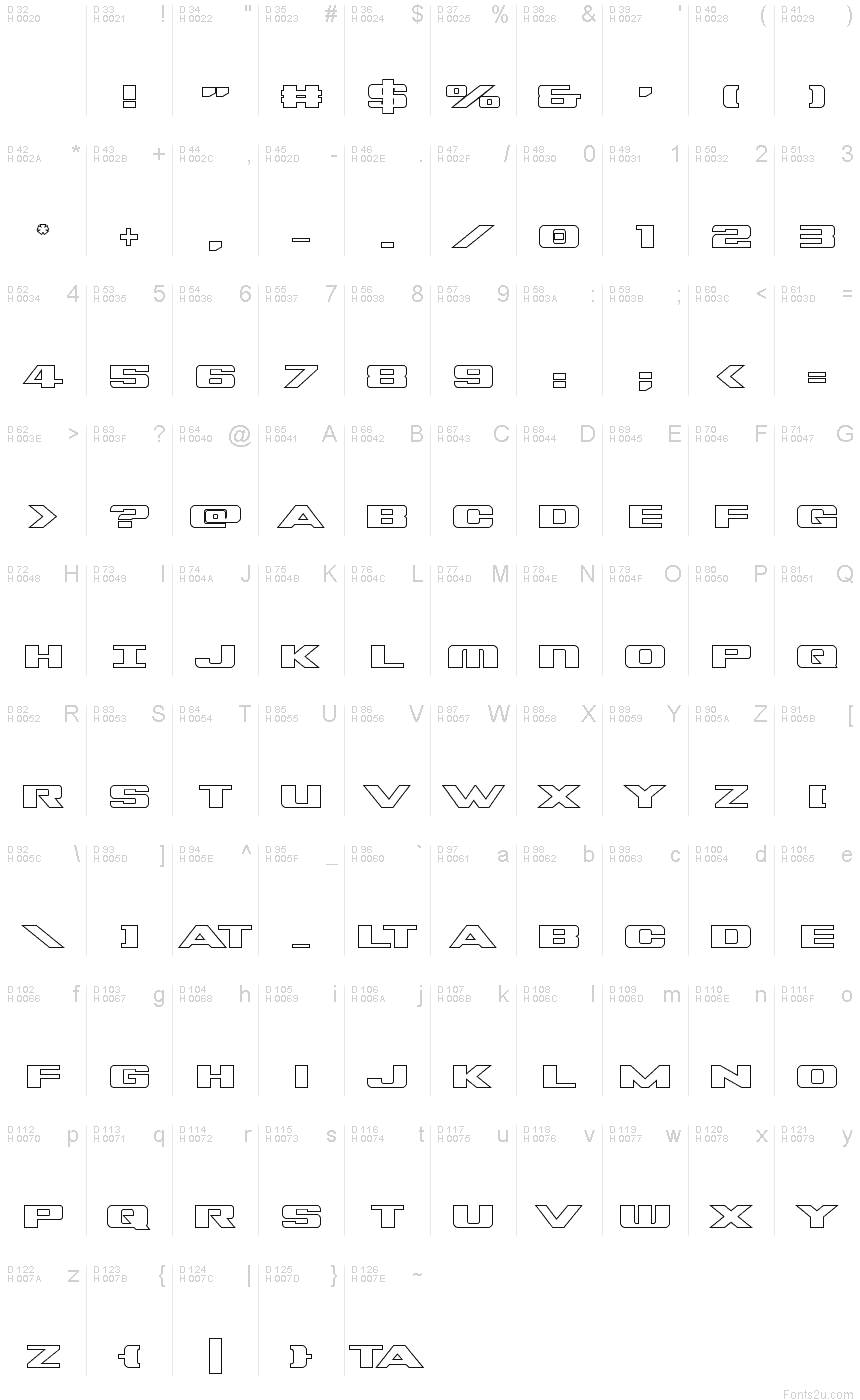
Tigershark Outline by Iconian Fonts is a free modern outlined display font with extremely wide capitals and a sleek, machine-cut profile. Rounded rectangular curves meet sharp diagonal joins, and the low, broad proportions give the capitals a strong motorsport feel.
Packaging is a natural home for its futuristic proportions, especially on sports gear and tech products. It also suits game title screens and music posters. The hollow, extended shapes can echo interface frames, racing stripes, or angular illustrations, letting the lettering become part of the surrounding graphic theme.